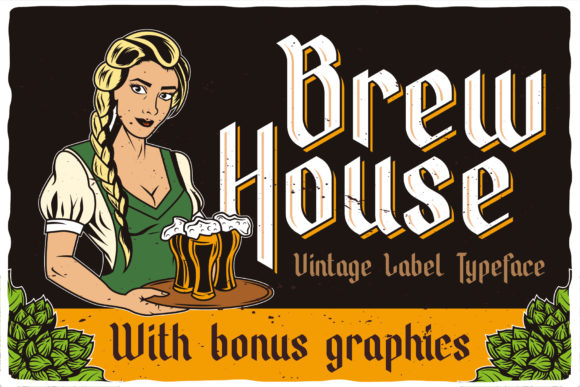
Introducing Brew House Font - the perfect font for your fashion blog! Created by Vozzy Vintage Fonts and Graphics, this simple and authentic blackletter font is the answer to all your font needs. With its sleek and professional look, Brew House is perfect for branding, product packaging, invitations, quotes, t-shirts, labels, posters, logos, and so much more!
If you're looking for a font that exudes sophistication and style, Brew House is the one for you. Its timeless design is sure to elevate your fashion blog to new heights and make a lasting impression on your readers. With its unique and captivating style, Brew House is the best font for fashion blogs and will help you stand out from the crowd.
Not only is Brew House aesthetically pleasing, but it's also incredibly versatile. Whether you're creating a bold and daring look or a subtle and understated one, this font has got you covered. And with its keyword "Best Fonts for Fashion Blogs," you know you're getting a font that's designed specifically for your needs.